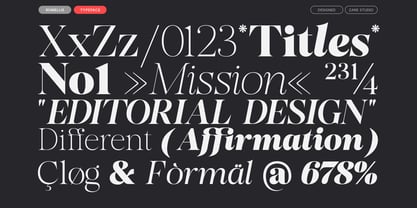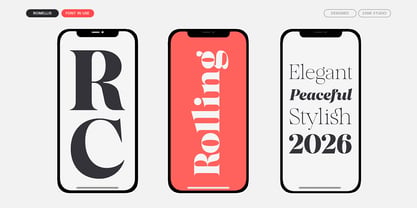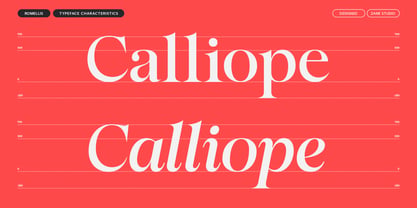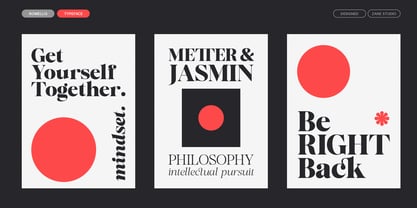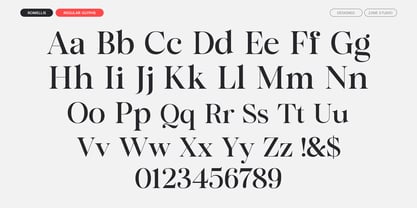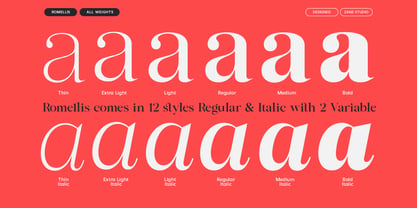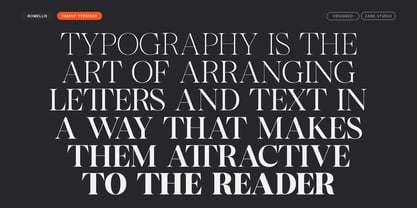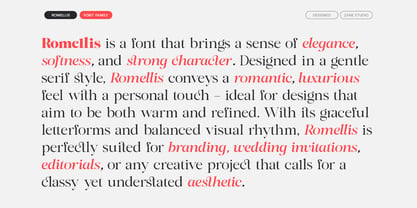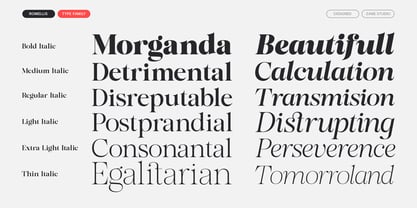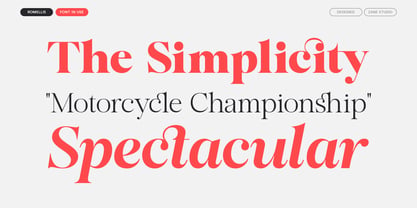
Romellis
by Zane Studio
The Romellis Font Family was designed by Mur Zani and published by Zane Studio. Romellis contains 14 styles and family package options. More about this family
Romellis – Editorial Serif Typeface
Romellis is a modern serif font that blends classic elegance with an expressive contemporary touch. Designed with high contrast, sharp shapes, and gentle curves, Romellis creates a classy and bold editorial feel.
With 12 styles (including italics) and 2 variable files, Romellis offers great flexibility for a variety of design needs—from fashion headlines and beauty branding to magazine editorials and elegant web interfaces.
Special features include:
Unique dynamic ligatures
Multilingual support
Sharply detailed letterforms with gentle curves
6 weights and 6 italic styles
Variable design for size and thickness flexibility
Romellis is perfect for designers who want to convey a strong, beautiful, and professional message in one typeface.
Designers: Mur Zani
Foundry: Zane Studio